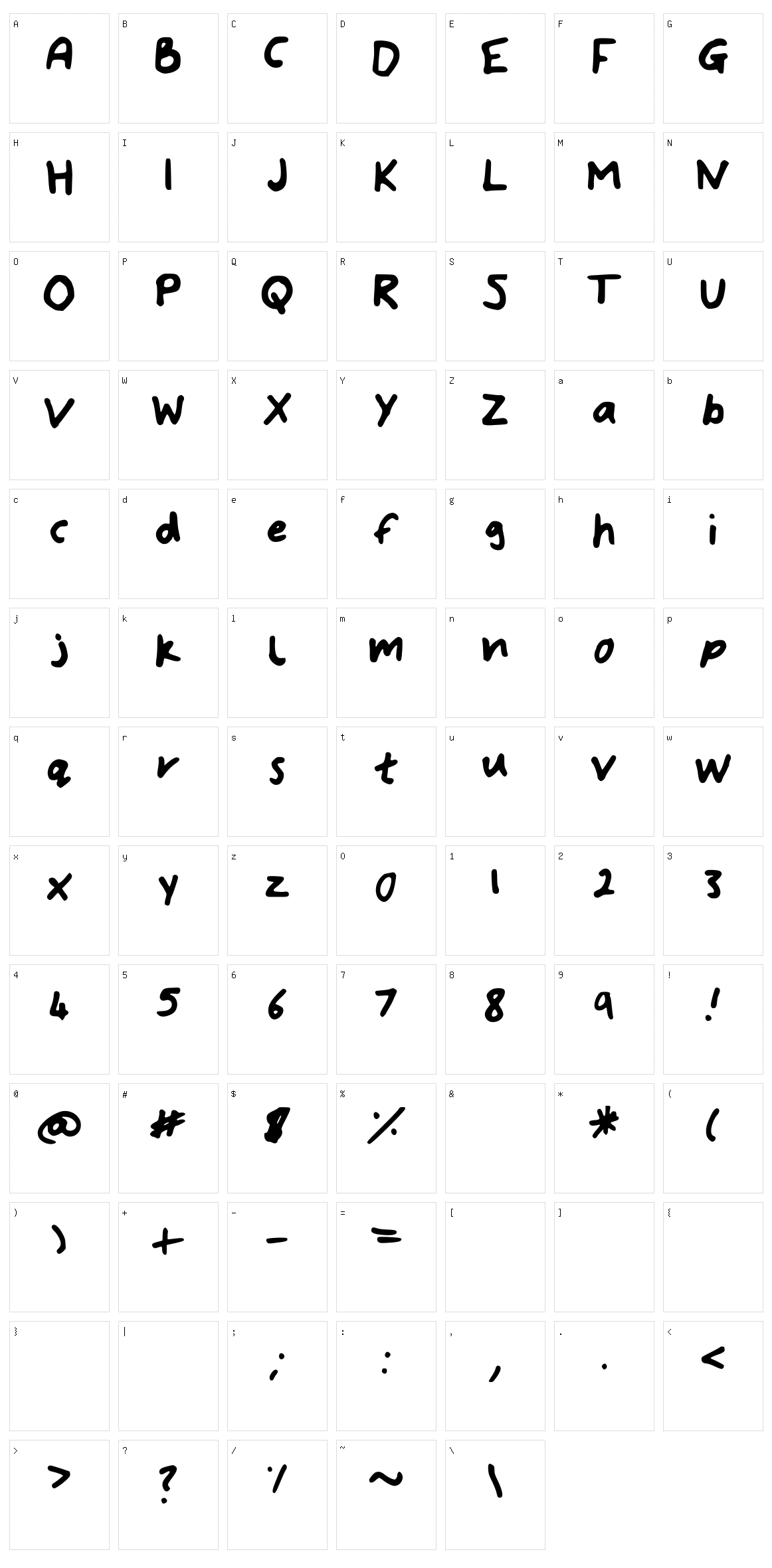
The free font Bryonys Handwriting Bold is carefully designed by Bryony Simpson, showcasing a thoughtful balance of creativity and usability and falls under the Script font style. When you download the ZIP file, it contains only 11.62 KB of font files, making it lightweight and quick to download. Please review the license details below to understand permitted usage and distribution rights. If license information is not available, we recommend using this font for personal projects only or contacting the author directly for commercial usage permissions.